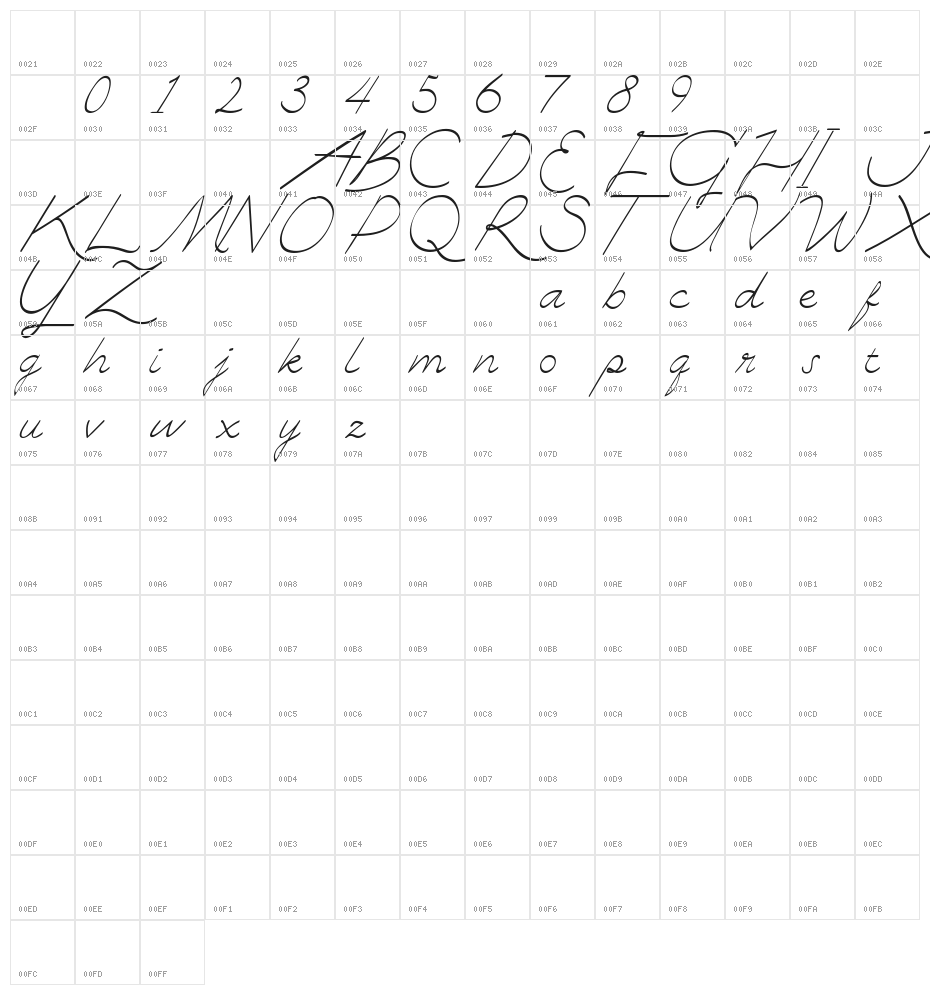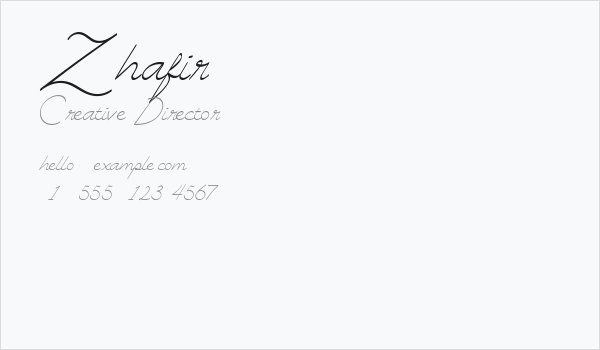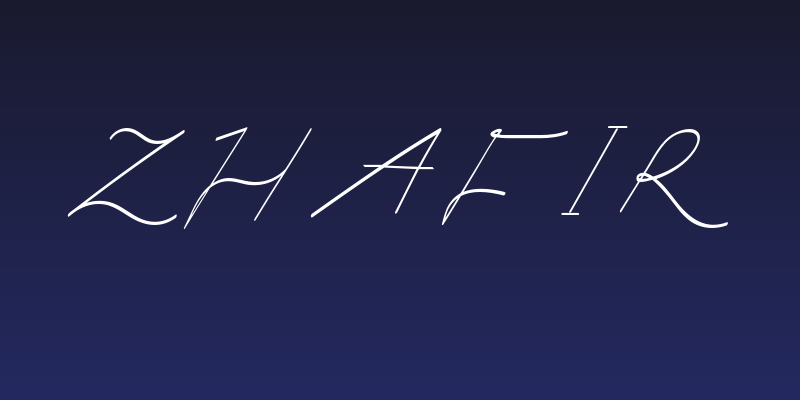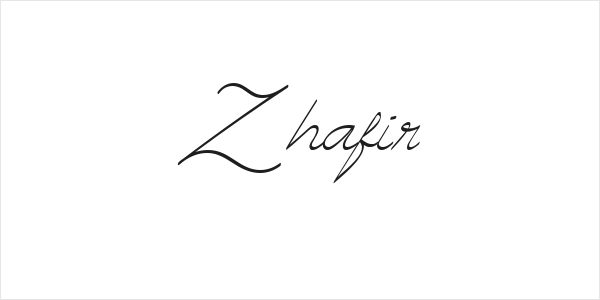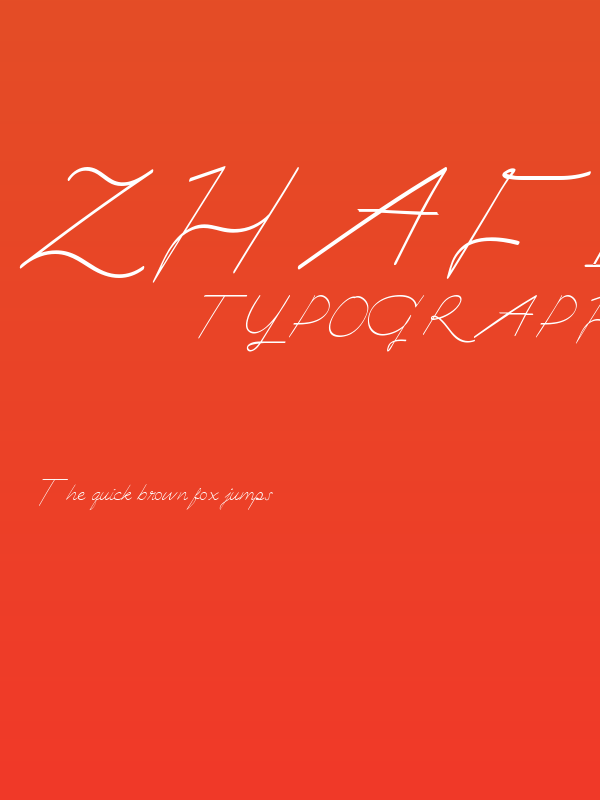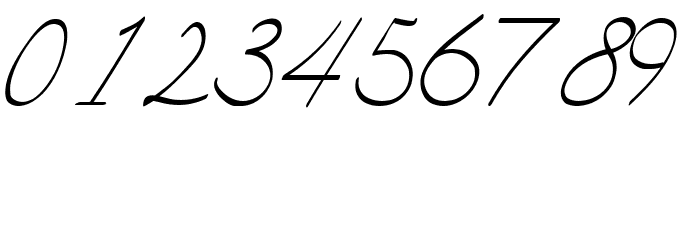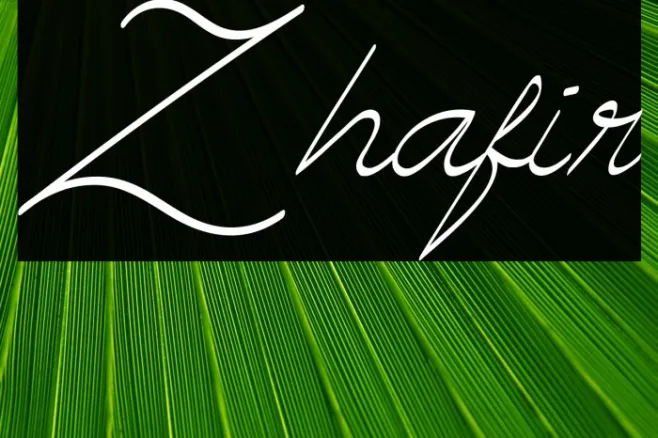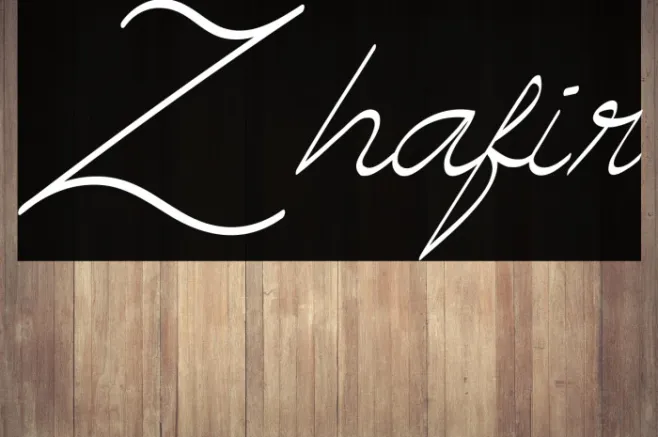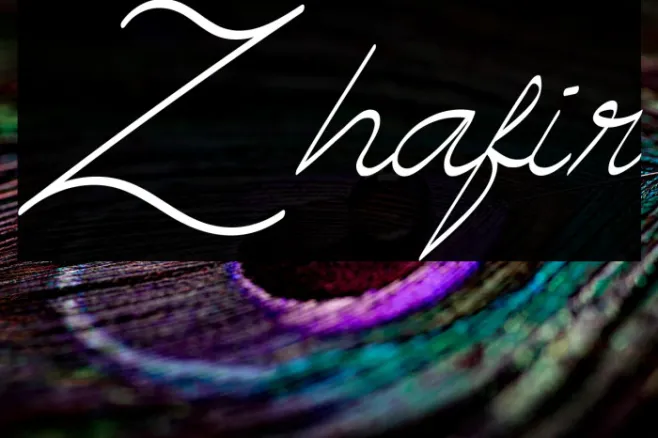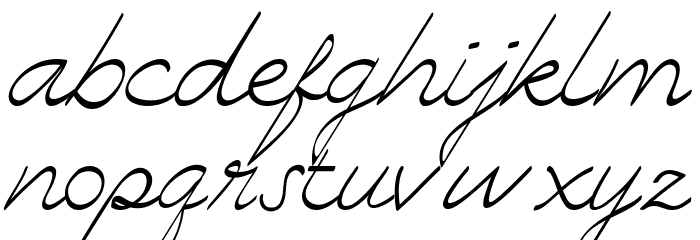
Zhafir Font
Zhafir Description
This elegant script font features a flowing, cursive style with smooth, continuous strokes that create a sense of fluidity and grace. The uppercase letters are slightly more angular, adding a touch of sophistication, while the lowercase letters maintain a consistent, rounded form. The numerals are clear and legible, complementing the overall design. The font's delicate lines and gentle curves make it ideal for projects that require a personal, handwritten touch. Its balanced proportions and harmonious letterforms ensure readability while conveying a sense of elegance and refinement.